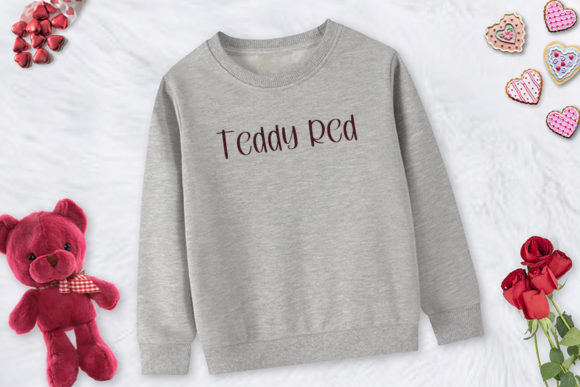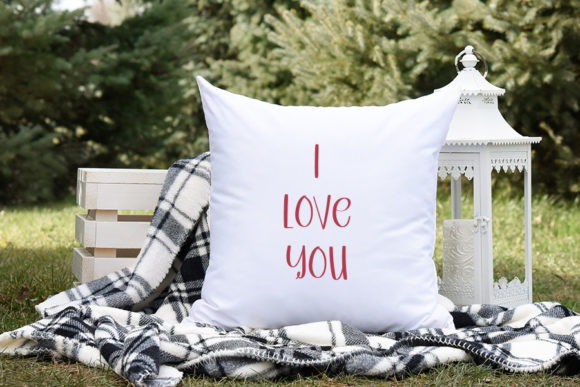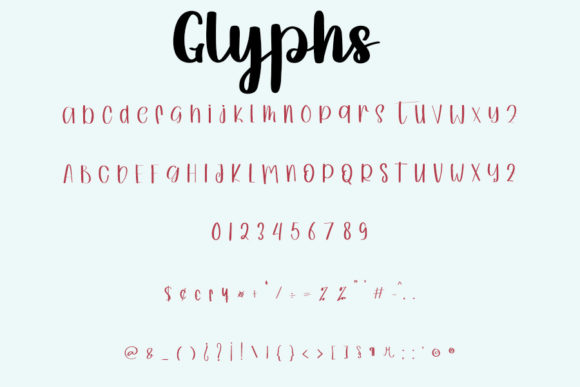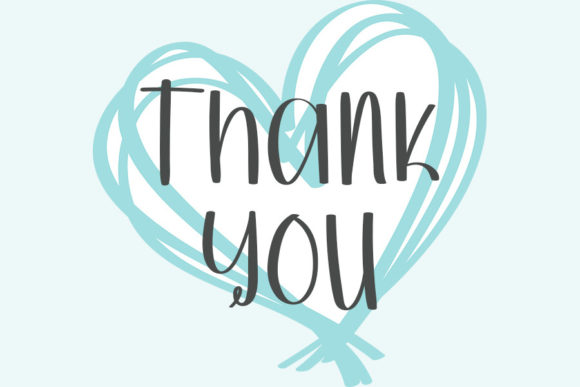
Skinny Cute Font
About Skinny Cute Font
Skinny Cute is a relaxed and friendly handwritten font. Its informal style and casual vibe will make this font a go-to choice for each of the creations that require a relaxed touch.